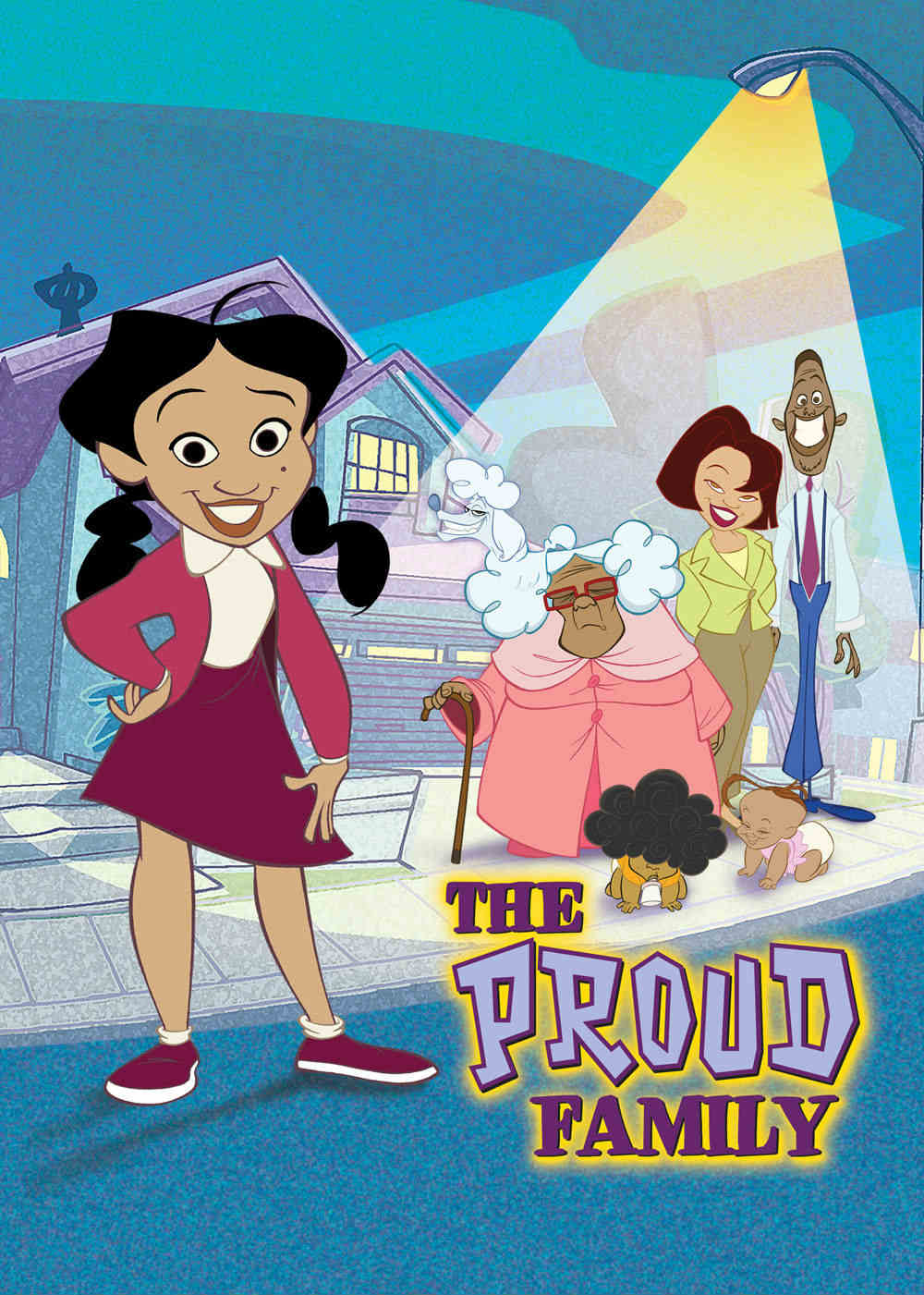
The Proud Family [TV Show] Font
AnimationThe Proud Family is an American animated television sitcom that aired on the Disney Channel from 2001 to 2005. The series focuses on the adventures of a middle-school student named Penny Proud and her diverse family as they navigate the challenges of everyday life with heart and humor.
The logo of the TV series uses a combination of fonts, the “PROUD” part is set in a comic font called Playhouse from House Industries and “THE FAMILY” part uses a display typeface ITC Garamond Ultra by Tony Stan. ITC Garamond was originally available in Book and Ultra weights but was later released in Light and Bold weights in 1977 due to its popularity in these weights.